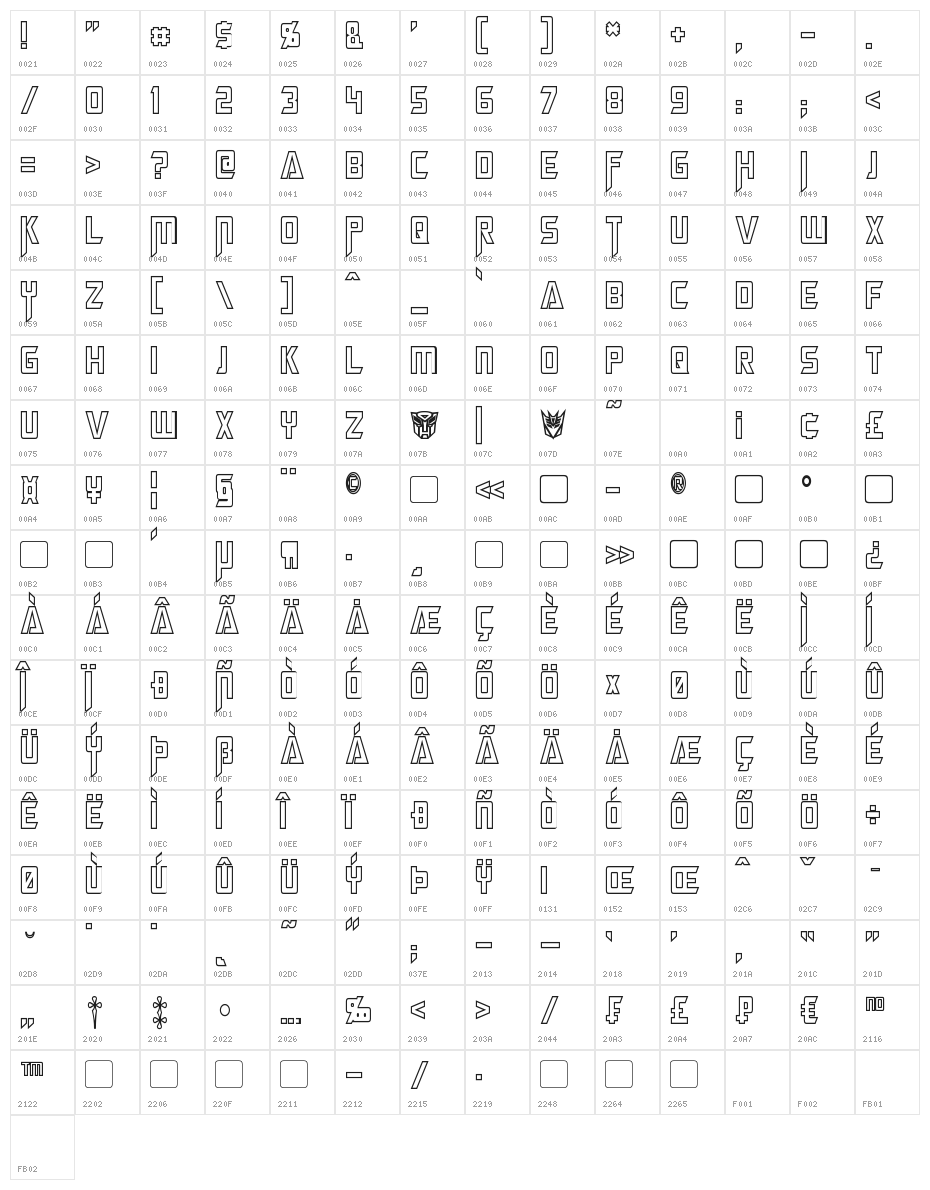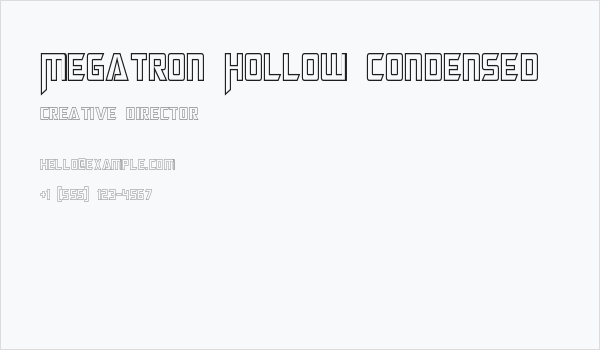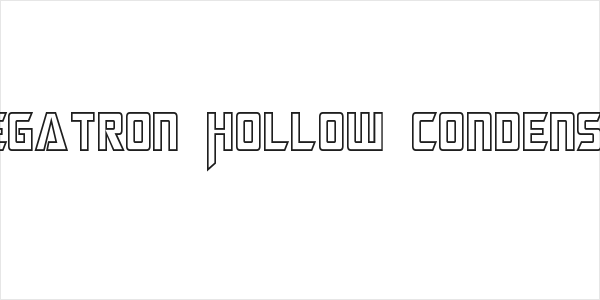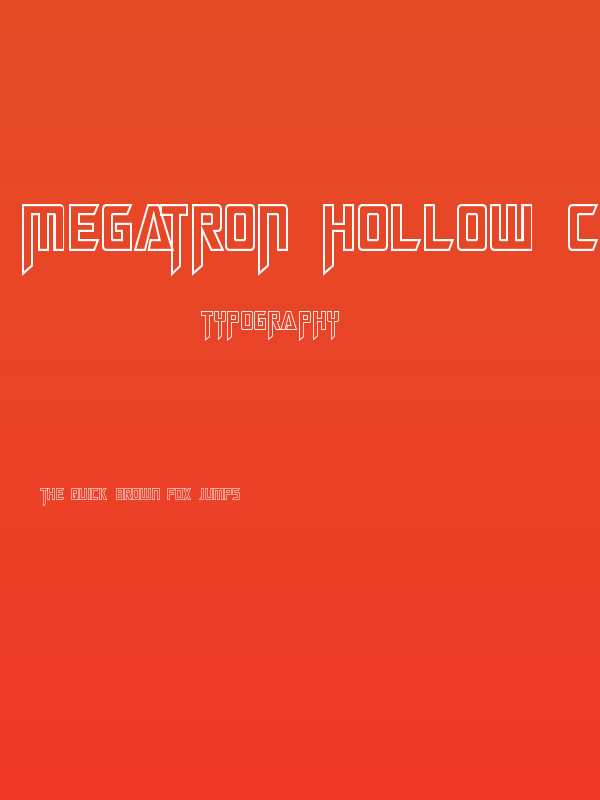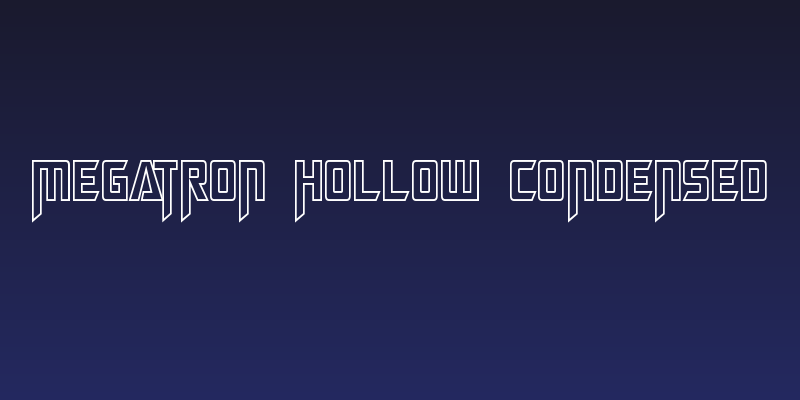
Megatron Hollow Condensed Font
Megatron Hollow Condensed Description
This font features a bold, futuristic design with hollow, geometric letterforms. Each character is outlined, creating a striking visual effect that emphasizes its angular and condensed structure. The uppercase and lowercase letters maintain a consistent style, with sharp edges and a uniform height that enhances readability. The numerals and special characters follow the same design principles, ensuring a cohesive appearance across all elements. This font's unique style makes it ideal for projects that require a modern, tech-inspired aesthetic.
| Proposed Projects | Ideal for sci-fi themed posters, video game titles, tech branding, and futuristic event flyers. |